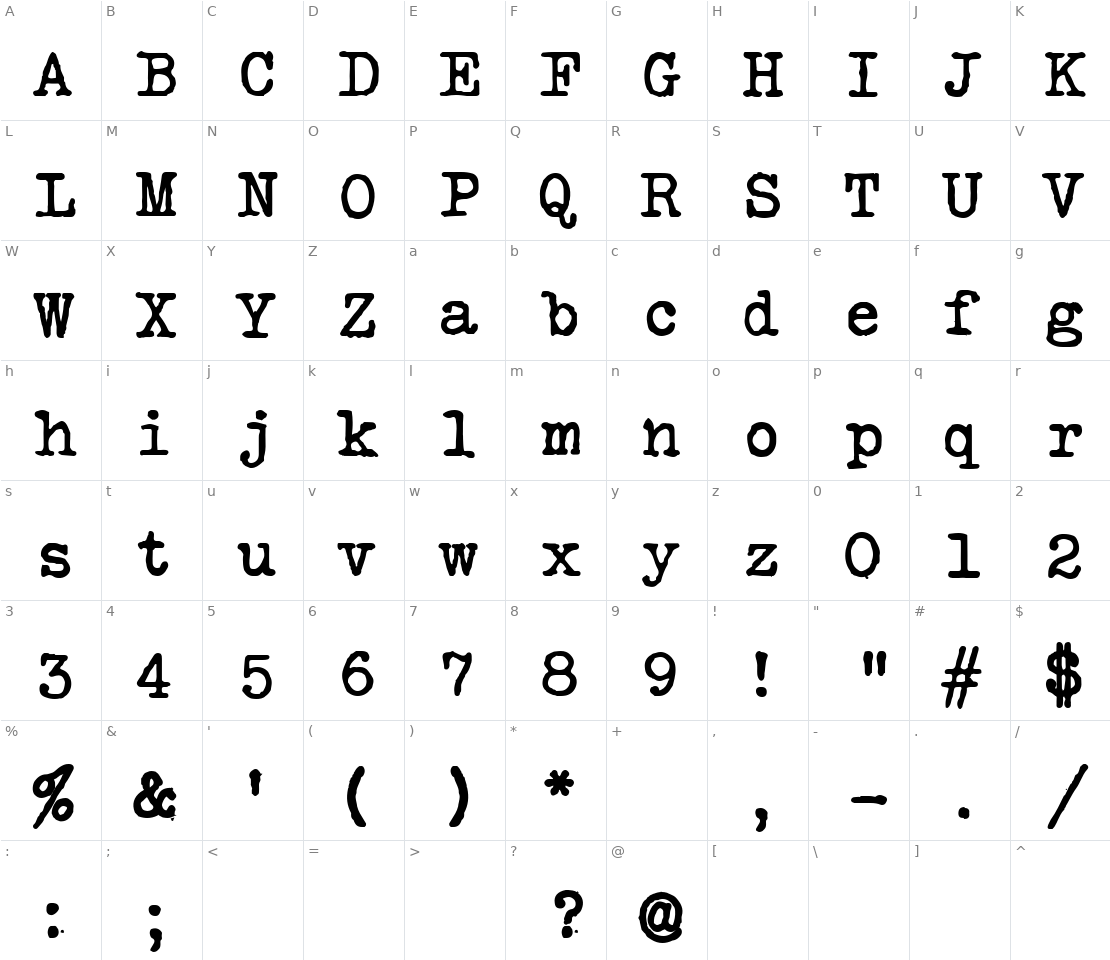
Silk Remington
Silk Remington is a bold typewriter face from Jaduger Design Studio with rough, inked-in letterforms that feel like they came off an old ribbon running low on supply. The monospace structure and visible texture give it genuine vintage character, more antique office than digital retro. Works well for headlines, editorial layouts, and branding that wants to tap into mid-century nostalgia without looking too clean about it.